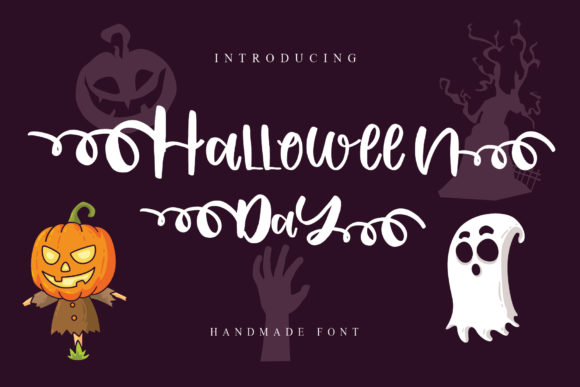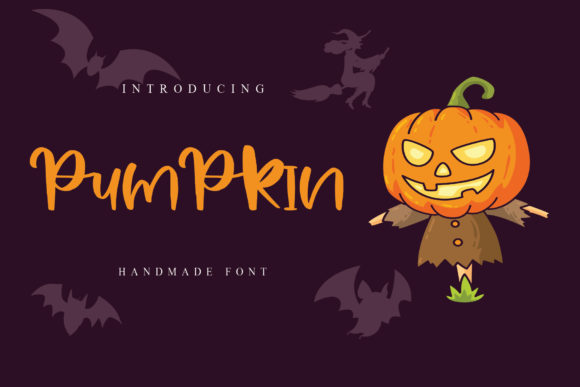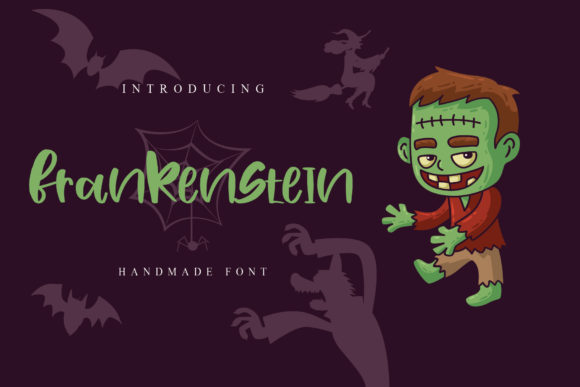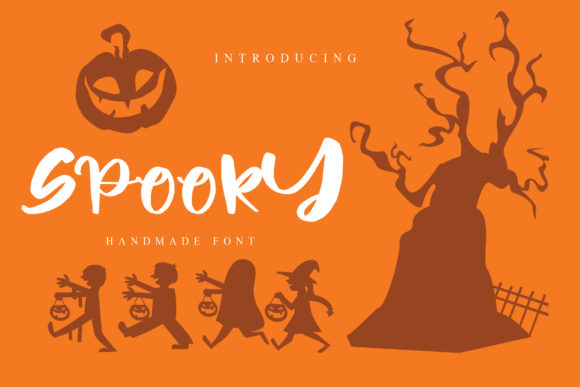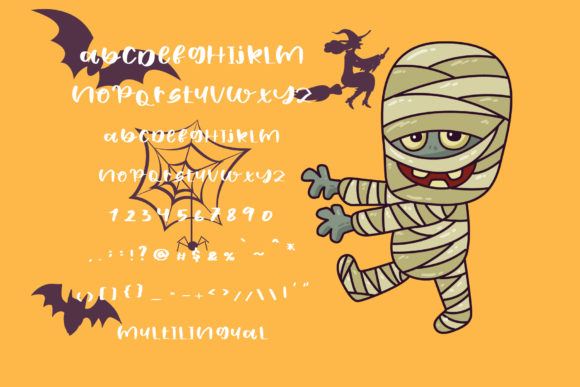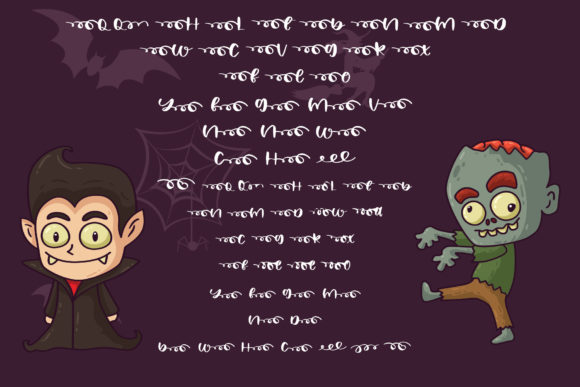
The Perfect Font for a Spooky Night: Halloween Day Font
As a designer, have you ever found yourself pouring over font options, searching for the perfect one to bring your project to life? It’s that moment, when the right font clicks, that we know we’re onto something special. And for those who love the spooky season, we have just the thing: Halloween Day Font.
This elegant, flowing handwritten font is designed to add an air of sophistication to your favorite projects. With its distinct and timeless style, Halloween Day Font is perfect for anyone looking to create spectacular designs that stand out from the crowd. Whether you’re designing for a Halloween party, a fall-themed blog, or just want to add a touch of autumnal magic to your branding, this font is sure to impress.
- Font Style: Halloween-themed, spooky, and playful font, ideal for seasonal designs.
- Unique Characteristics: Includes unique Halloween-themed glyphs, such as jack-o-lanterns, bats, and spiders, adding a touch of whimsy to designs.
Halloween Day Font Review
I recently had the chance to play around with the Halloween Day Font, and I have to say, it’s a unique addition to any spooky-themed project. ✨ The font’s eclectic mix of gothic and playful elements makes it perfect for capturing the essence of Halloween.
Here are some of the things I like about the font:
- Its versatility: The font can be used for a wide range of applications, from logos and titles to body text and even decorative elements.
- Its uniqueness: The font’s blend of spooky and whimsical elements makes it stand out from more generic fonts.
However, there are a few limitations I’ve encountered:
- Its limited character set: The font doesn’t have a full set of characters, which can make it difficult to use in certain situations.
- Its potential for overuse: The font’s unique style can quickly become overwhelming if used too extensively.
Overall, I’d give the Halloween Day Font 4 out of 5 stars. It’s a great choice for designers looking to add a touch of Halloween magic to their projects, but it may not be the best fit for every project. ⚠️
Use the Halloween Day Font for:
- Spooky invitations and party decorations.
- Ghostly graphics and illustrations.
- Creepy captions and quotes.
Remember to experiment with different font sizes, colors, and styles to achieve the desired spooky effect.